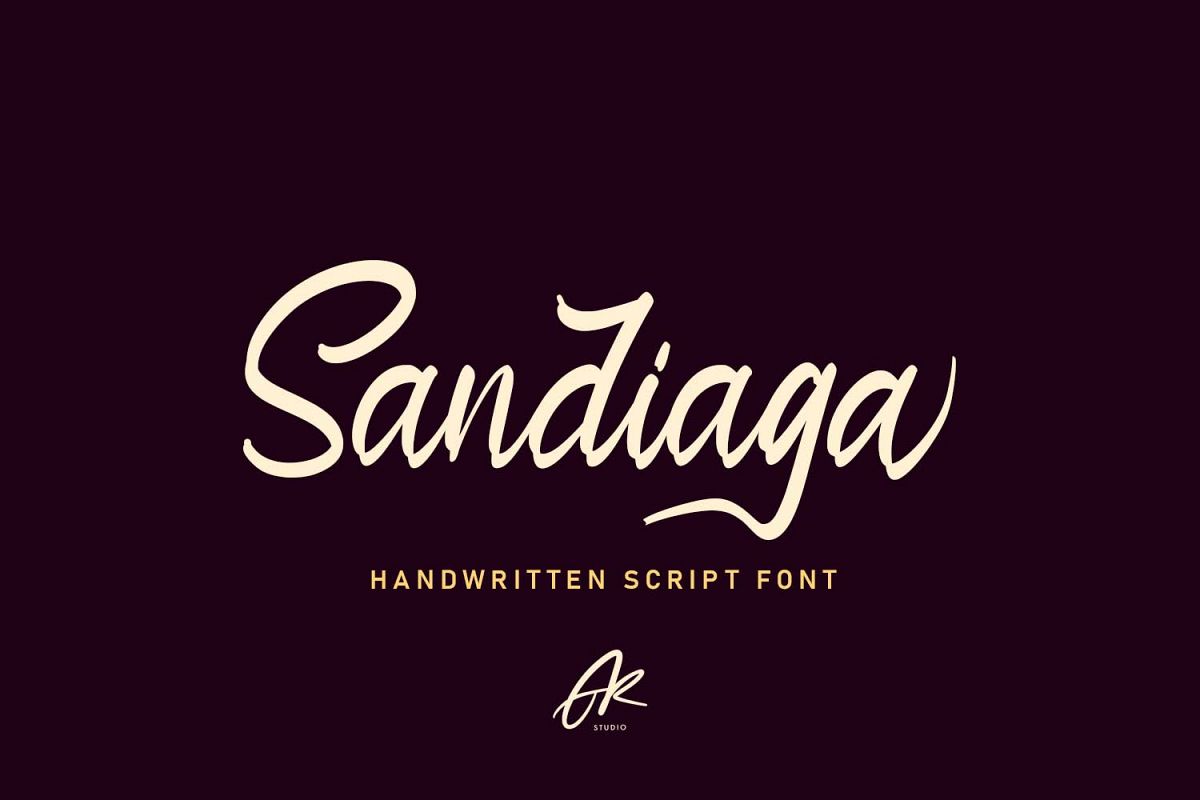
Sandiaga | Modern Script Font
Sandiaga
Sandiaga is a handwritten script font that is designed to suit the needs of consumers who focus on the custom style
Sandiaga came with opentype features such stylistic alternates, stylistic sets & ligatures good for logotype, poster, badge, book cover, tshirt design, packaging and any more.